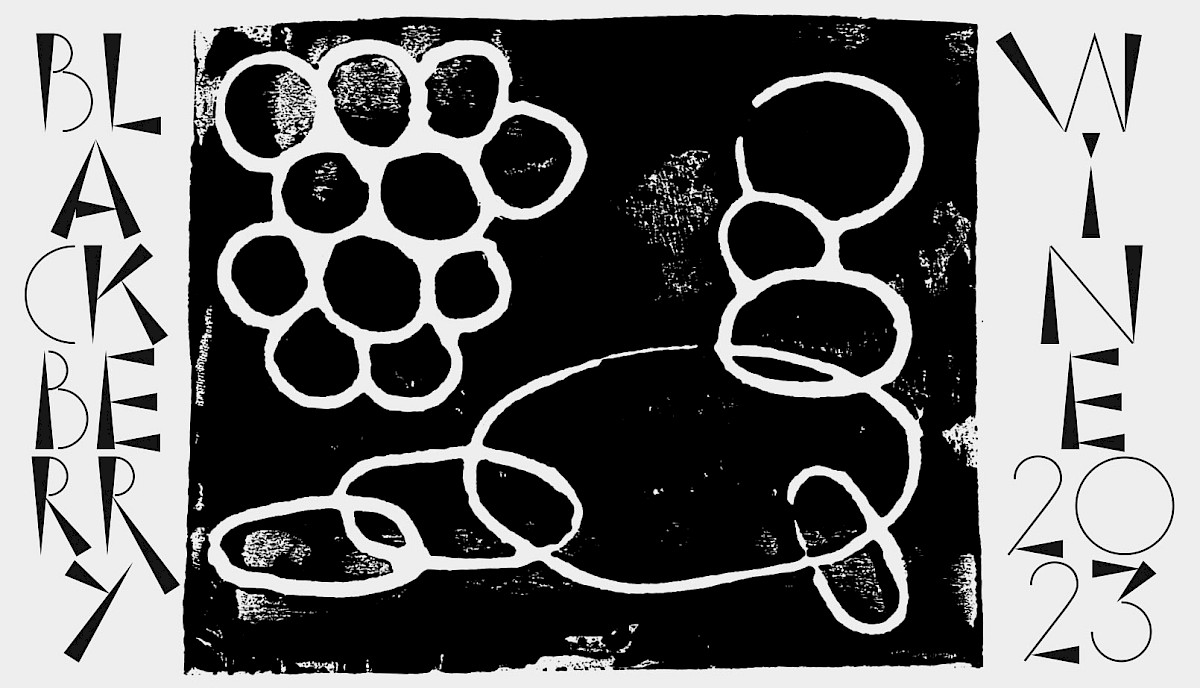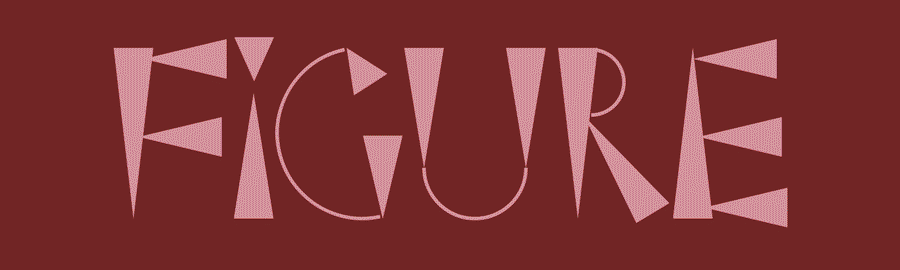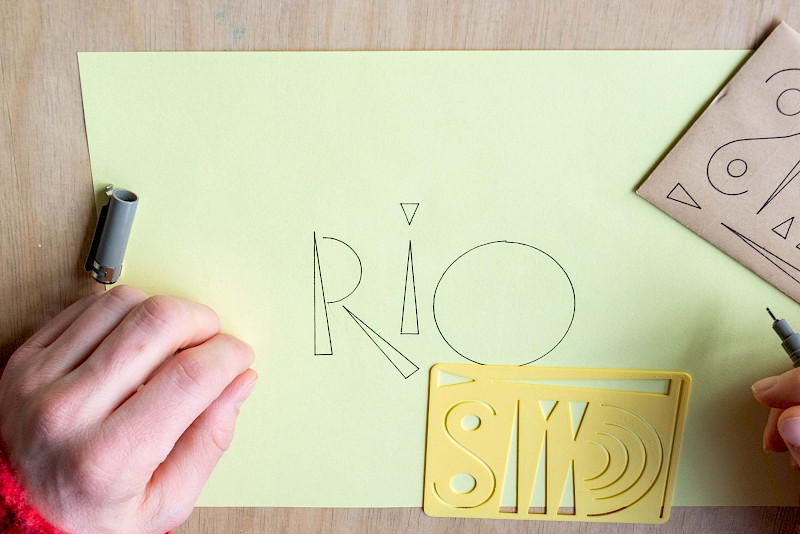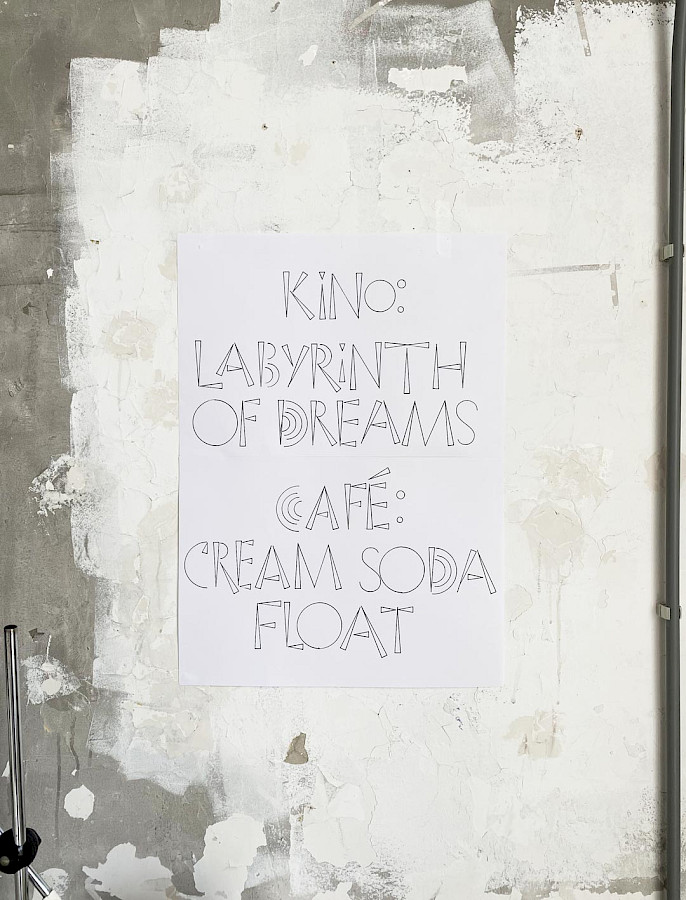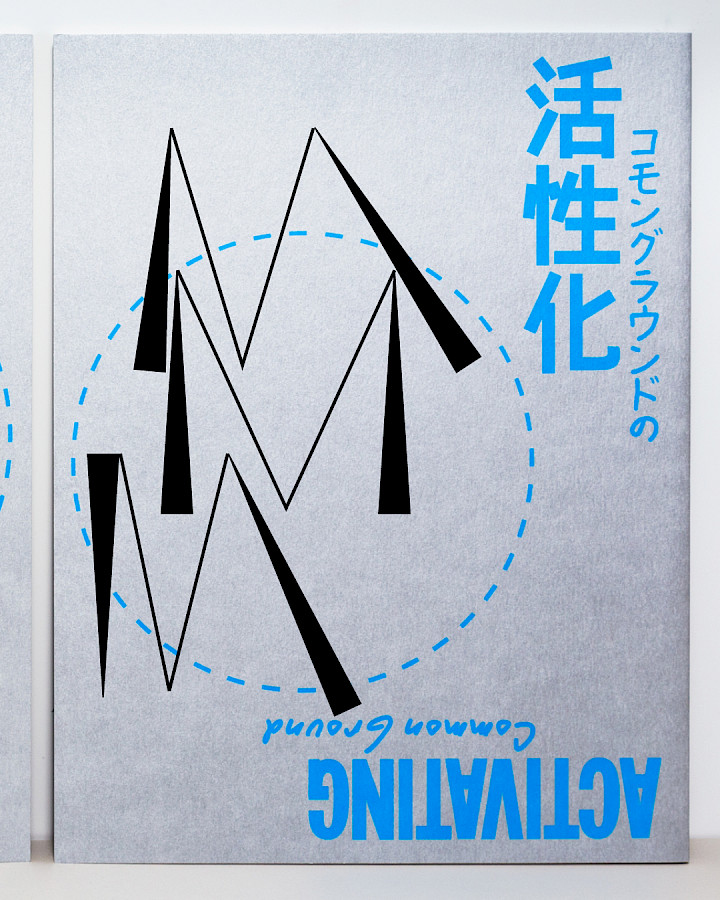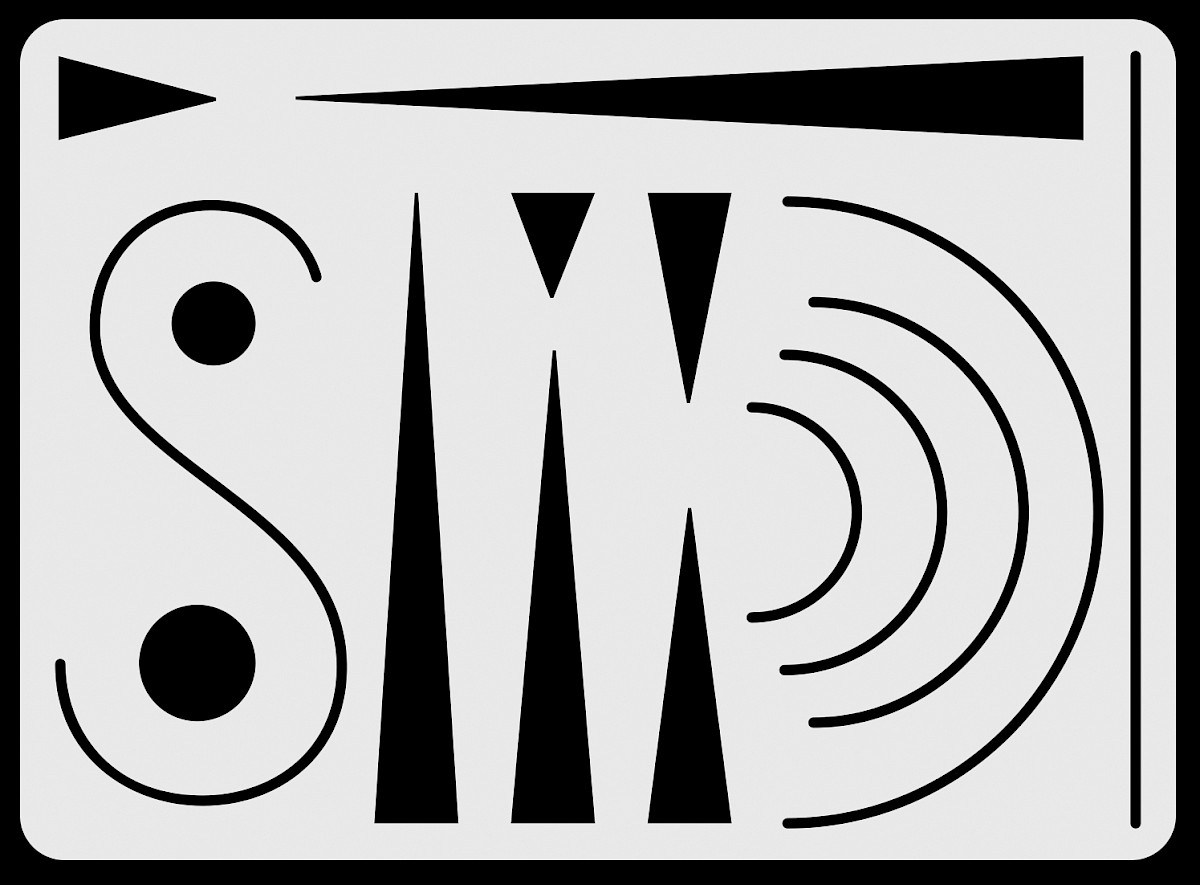
rio
RIO is a typeface and a stencil designed by Marius Schwarz. It started as a by-product of an assignment which got revisited and developed over the years, seeking to find a letterform between conceptual modularity and crafty imperfection.
“More than ten years ago I was asked to design a logo for a high school in Kleve, named after Joseph Beuys. It made me think how Beuys must have been as a student and respectively as a teacher. I came across a local memorial site in which unknown Beuys carved names into wood in a very direct and crafty way, shaped by the triangular chisel he used. Years later, when Beuys was a professor at the art academy in Düsseldorf, Imi Knöbel was one of his students. In this time Knöbel developed the conceptual modular furniture called Raum 19 (referring to their class room), which could be taken apart and rearranged in different exhibition settings. I was fascinated by this formal and conceptual contrast between teacher and student. RIO combines the triangular carved letters with the modularity of the furniture, pin-pointing a generational conflict of teacher and student, while finding beauty within it.”
The typeface is called RIO for several reasons. It’s a name, It got a ring to it, Instead of Beuys or Knöbel it refers to another German legend altogether, punk singer Rio Reiser. On Silly Type Foundry it is available as a typeface with variable triangle weight.
RIO, stencil, Marius Schwarz, 2025
MMM, Invitation for magazine launch at Print Gallery Tokio. Design Marius Schwarz with Mariko Okazaki, 2025
BLACK BERRY WINE, wine label for Francois Girard-Meunier, 2025. design Marius Schwarz
KINO CAFÉ, Poster for Pam Virada, 2026. Design Marius Schwarz
FIGURE, Lisa Konno, National Ballet Amsterdam, Design Marius Schwarz with Dasha Glushkova, 2026